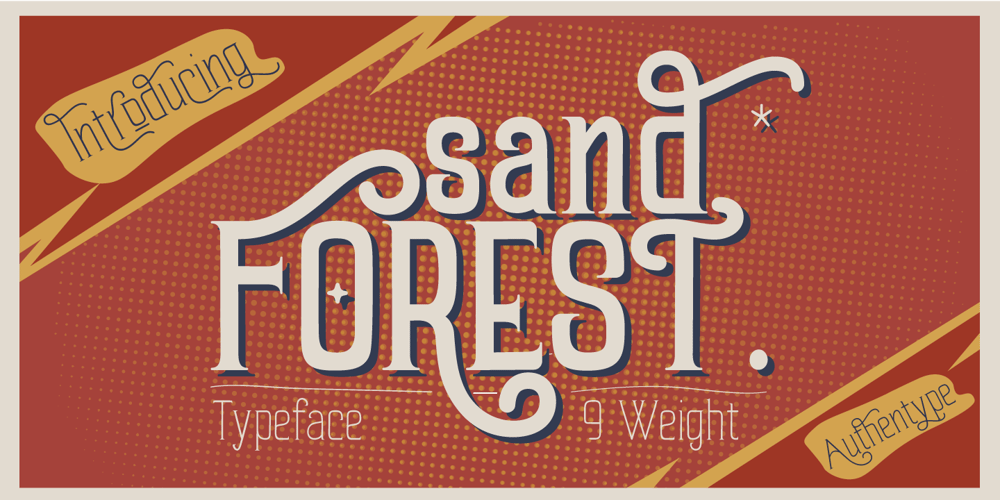
Sand Forest
Sand Forest font
Sand Forest Font Family was designed by Ekayasa and published by Authentype. Sand Forest contains 9 styles and family package options. Sand Forest is a display font with a full set of uppercase and lowercase letters, multilingual symbols, numerals, punctuation, and ligatures. Sand Forest elegant display font 9 family, classic and elegant style for poster design, magazines, branding concept.Features: Standard glyphs uppercase and lowercase letters Numerals, a large range of punctuation and ligatures. Lowercase letters include ending swashes. Works on PC & Mac. Simple installations, accessible in Adobe Illustrator, Adobe Photoshop, Adobe InDesign, even work on Microsoft Word. PUA Encoded Characters – Fully accessible without additional design software. Fonts include multilingual support for; ä ö ü Ä Ö Ü ß ¿ ¡ ____ Image used: All photographs/pictures/logo/vectors used in the preview are not included, they are intended for illustration purposes only.Hope you enjoy our font!